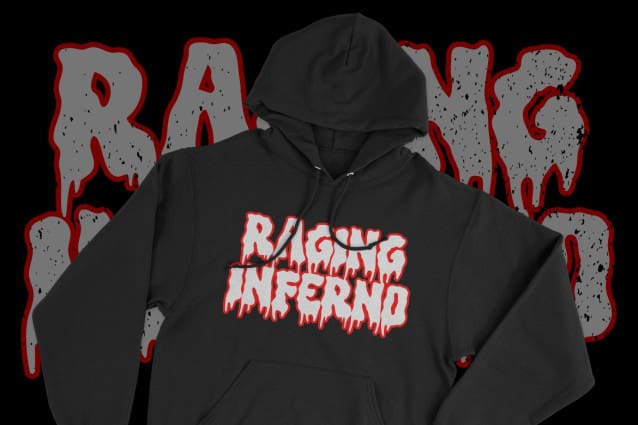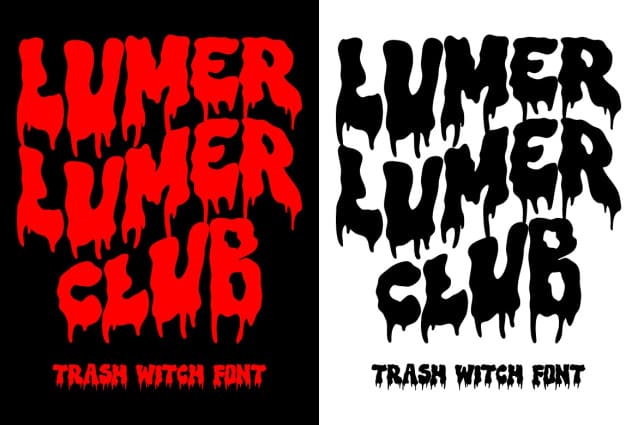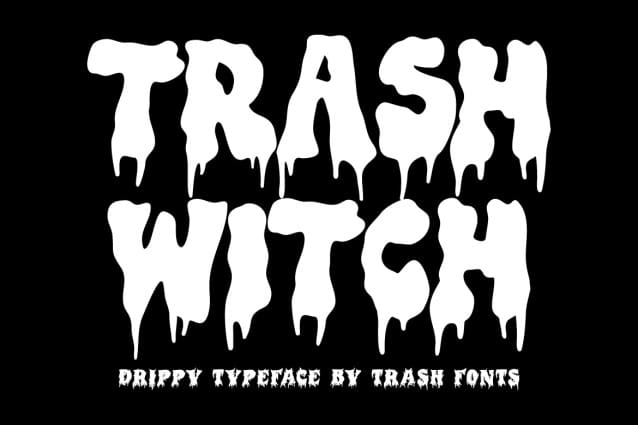
Trash Witch Font
Trash Witch Font, a mesmerizing typeface with a melting, otherworldly appearance that remains utterly captivating. Ideal for merchandise, logos, posters, and more, TrashWitch Font brings a spellbinding allure to your designs. Embrace its unique and enchanting aesthetic and let your creativity flow like magic.